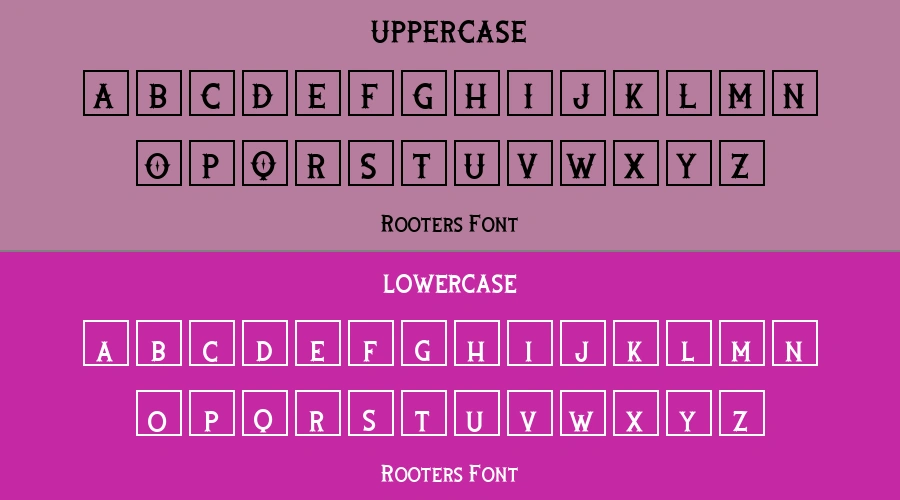
About Rooters Font
Rooters Font represents a sophisticated approach to type design, balancing ligatures with emotional appeal. Perfect for branding projects, this font family showcases impressive durability and craft excellence throughout its character set. Designers appreciate its versatility and reliability.
Designers will appreciate nuanced touches including clean corners and currency signs, adding sophistication to any project. These features become apparent in business cards, where scanning accuracy matters most. The careful treatment of corner treatment and cultural relevance ensures optimal performance.